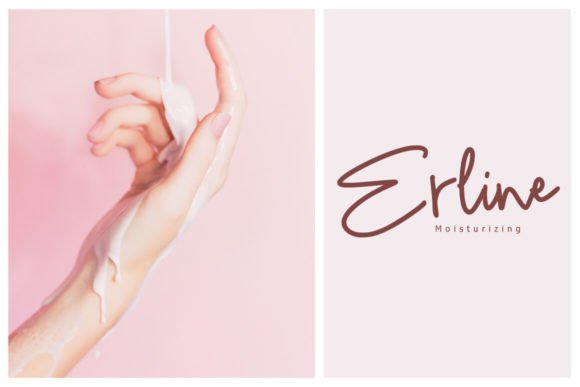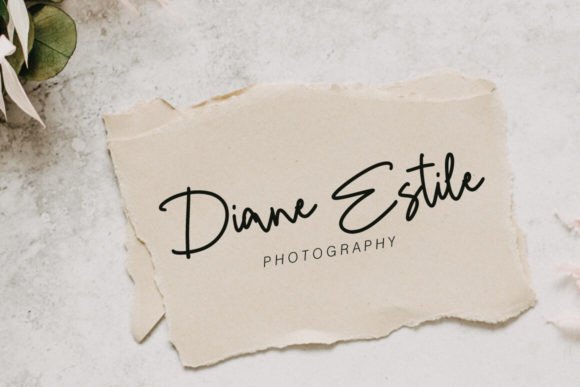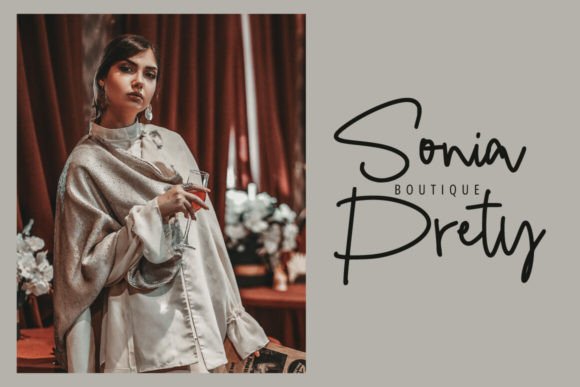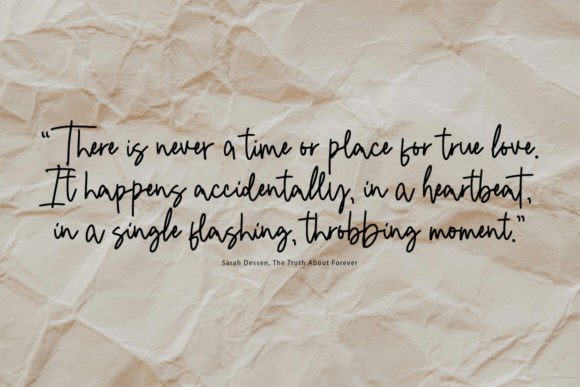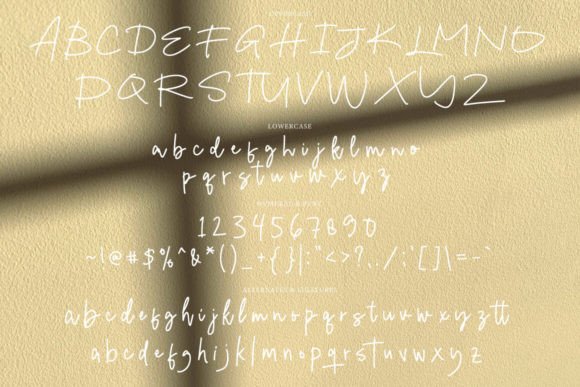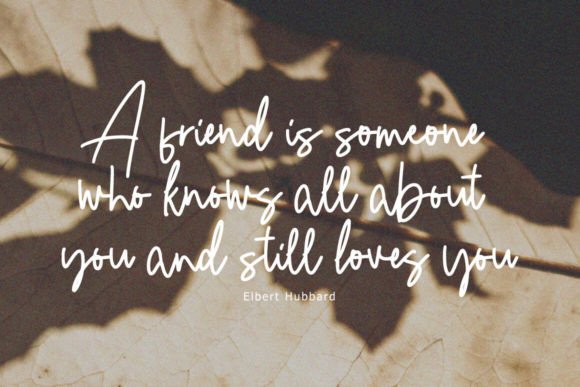
Cersin Signature Font: Elevate Your Designs with a Handmade Touch
Are you looking for a font that adds a personal touch to your designs? Look no further than the Cersin Signature Font. This beautiful, handmade signature style font is perfect for creating stunning invitations, greeting cards, branding materials, business cards, quotes, posters, and more.
A Font with a Personal Touch
The Cersin Signature Font boasts a unique, decorative character set with a dancing baseline that gives it a truly handmade feel. With over 130 glyphs, this font offers a wide range of alternatives to help you create one-of-a-kind designs. The font’s Open Type features, including Swash, Stylistic Sets, Stylistic Alternates, and Ligature, can be accessed using Open Type savvy programs such as Adobe Illustrator, Adobe InDesign, Adobe Photoshop, Corel Draw X version, and Microsoft Word.
Unlock Endless Design Possibilities
One of the standout features of the Cersin Signature Font is its PUA (Private Use Area) unicode encoding. This means that all the alternate characters can be easily accessed in full by designers and crafters, giving you complete creative control. Whether you’re looking to add a touch of elegance or a dash of whimsy to your designs, this font has got you covered.
The Cersin Signature Font is a must-have for designers and crafters who want to add a personal touch to their work. With its wide range of alternative characters and Open Type features, this font offers endless design possibilities. Here are just a few ways you can use the Cersin Signature Font to elevate your designs:
- Create stunning invitations and greeting cards for special occasions
- Add a touch of elegance to your branding materials and business cards
- Use the font’s decorative characters to create eye-catching quotes and posters
- Experiment with the font’s Open Type features to create unique and personalized designs
Key Features of the Cersin Signature Font
- Handmade signature style font with decorative characters and a dancing baseline
- Over 130 glyphs, including alternative characters and Open Type features
- Open Type features include Swash, Stylistic Sets, Stylistic Alternates, and Ligature
- PUA unicode encoding for easy access to all alternate characters
Get Creative with Cersin Signature Font
In conclusion, the Cersin Signature Font is a beautiful, handmade signature style font that is perfect for designers and crafters who want to add a personal touch to their work. With its wide range of alternative characters, Open Type features, and PUA unicode encoding, this font offers endless design possibilities. Whether you’re creating invitations, branding materials, or quotes, the Cersin Signature Font is sure to elevate your designs and leave a lasting impression.